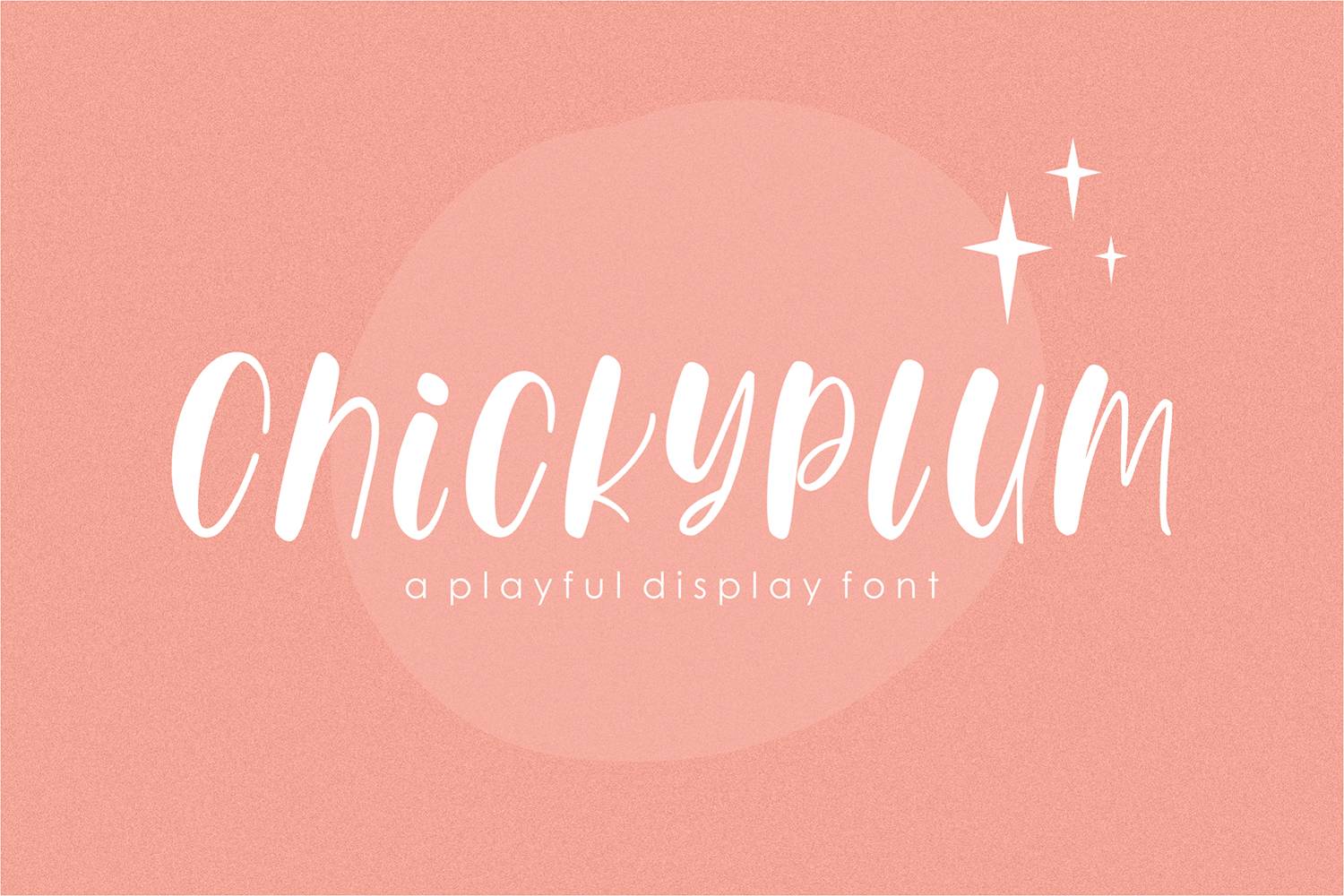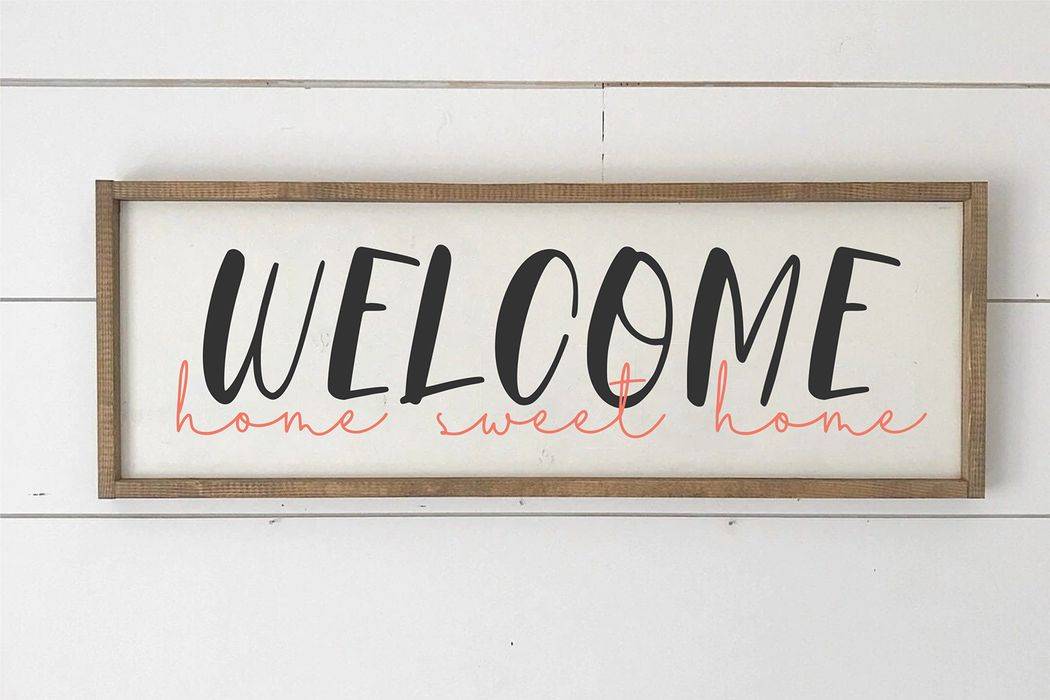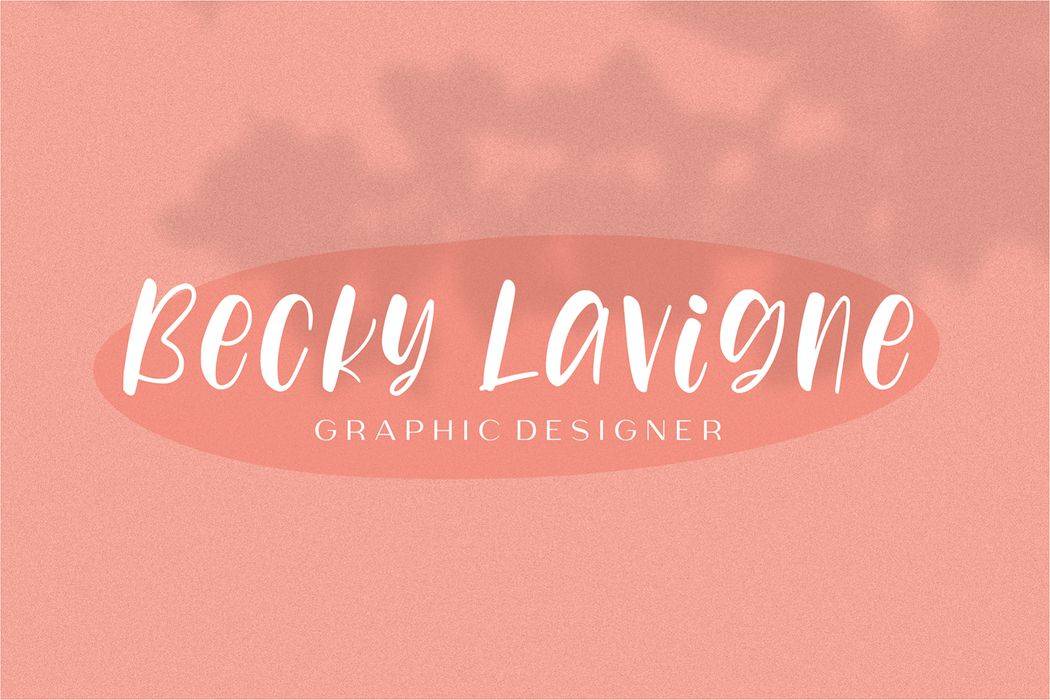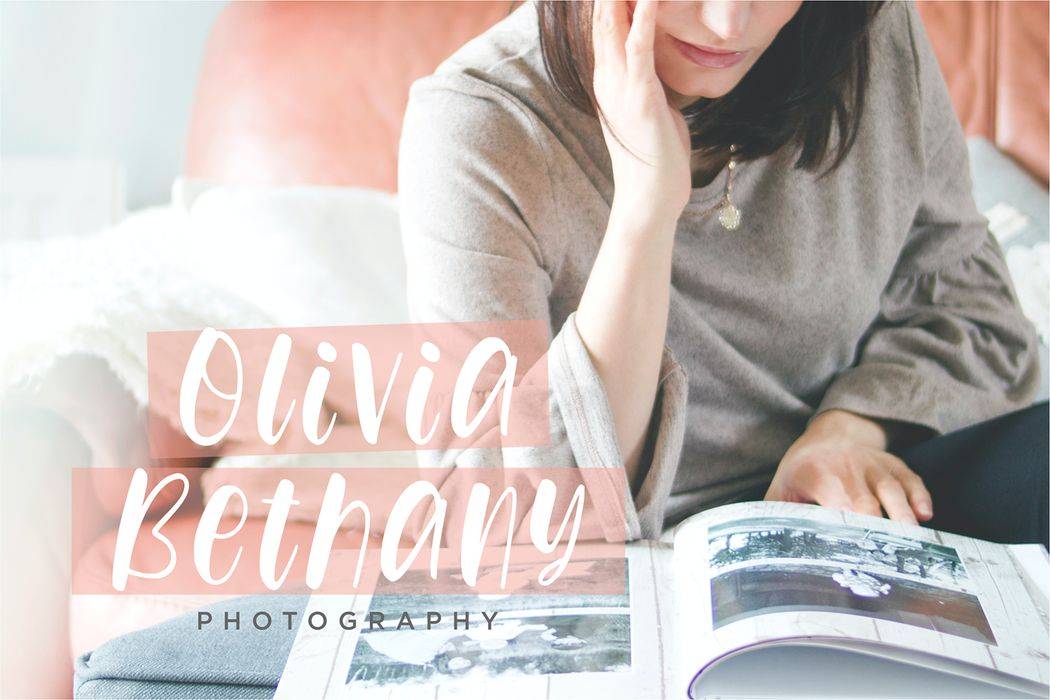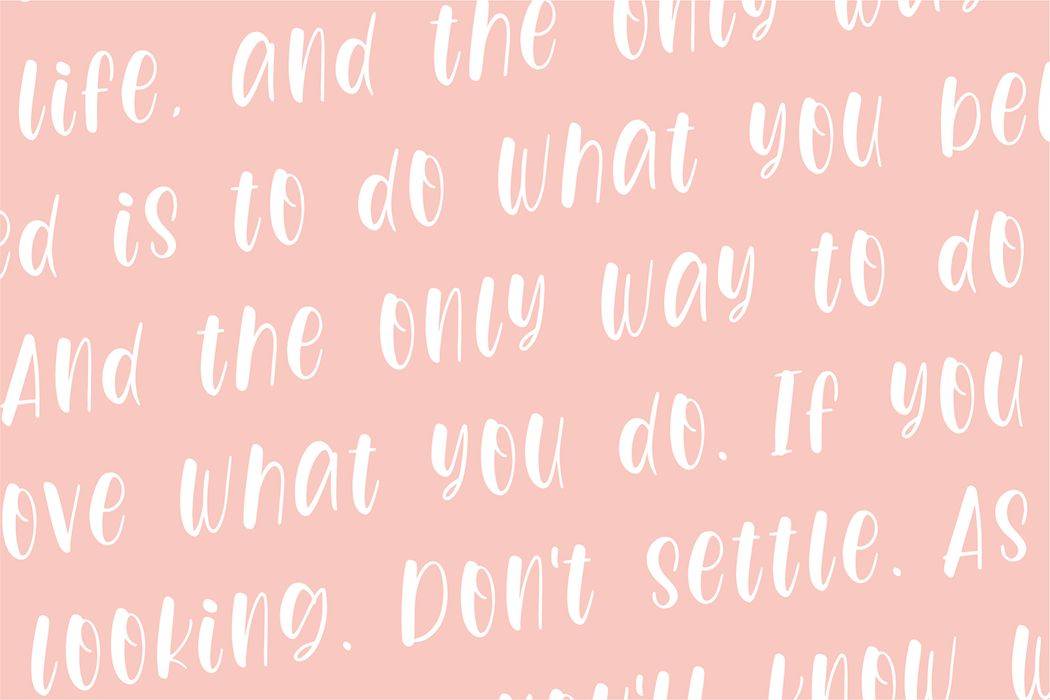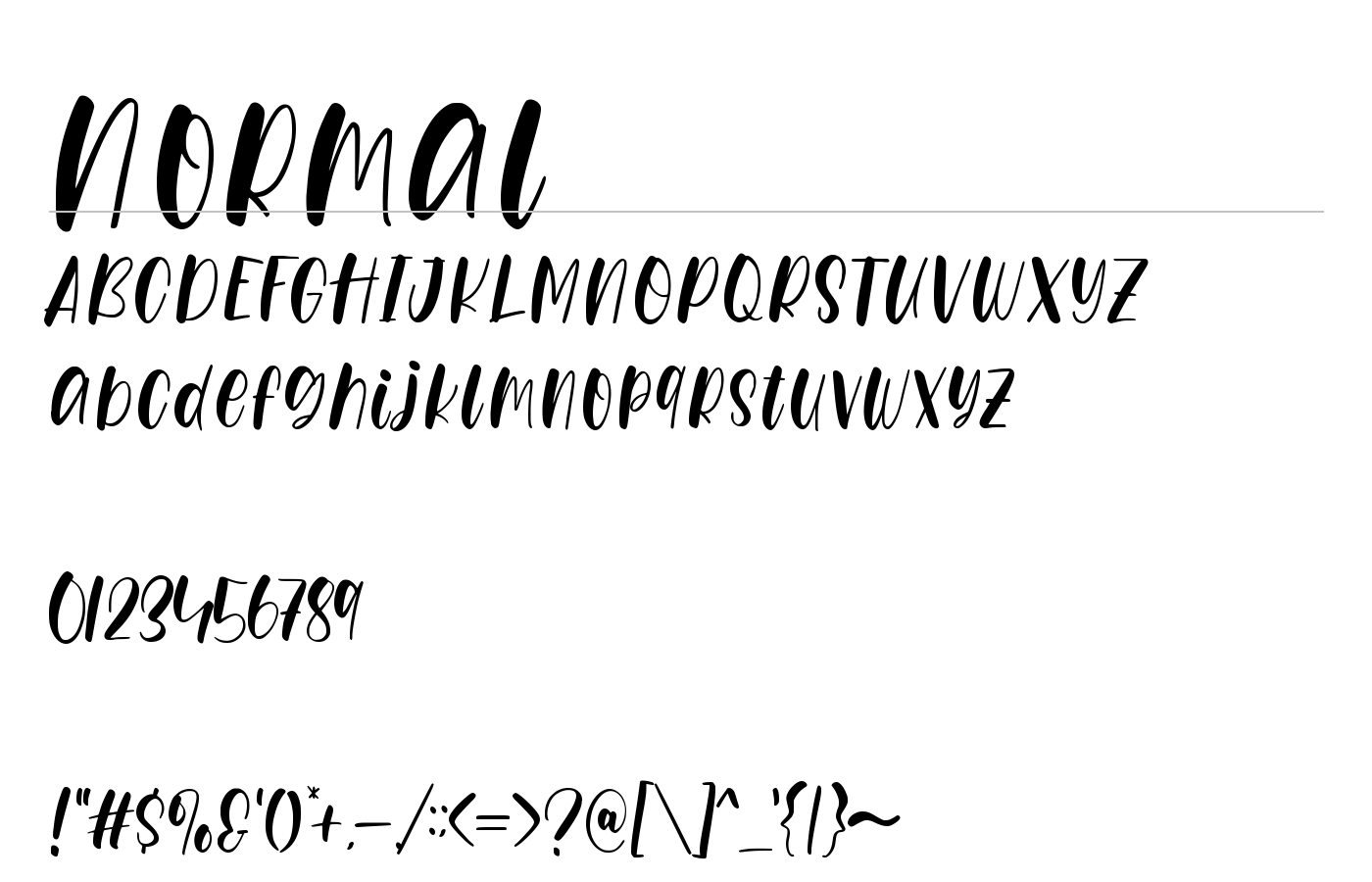
Chickyplum is a lively, casual script font with a playful yet elegant feel, featuring smooth, brush-like strokes and a slightly condensed width. Its tall x-height and varying stroke thickness create a friendly and approachable style, making it perfect for creative branding, invitations, and headline use where a personal, handcrafted touch is desired. This font works especially well in informal and artistic contexts, adding warmth and personality without sacrificing readability.
Chickyplum Font
About Chickyplum Font